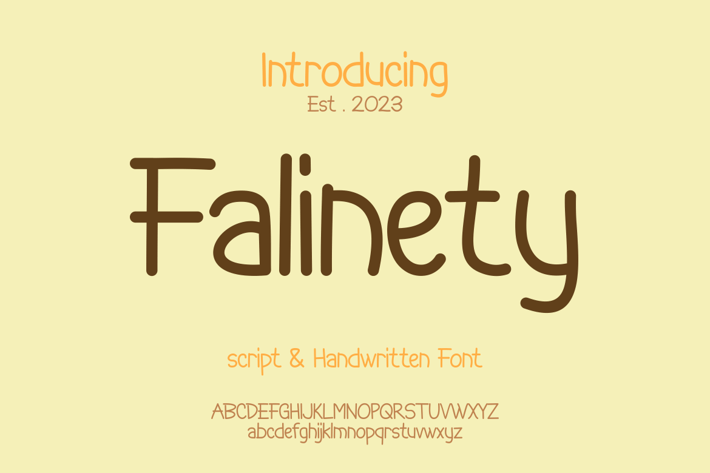
Falinety Font
Introducing our new product Falinety Font - Modern Font
Falinety Font - Modern Font is a bold and authentic display font. The font is suitable for any branding project like logo, t-shirt printing, esport, and many more. outstanding in a wide range of contexts.